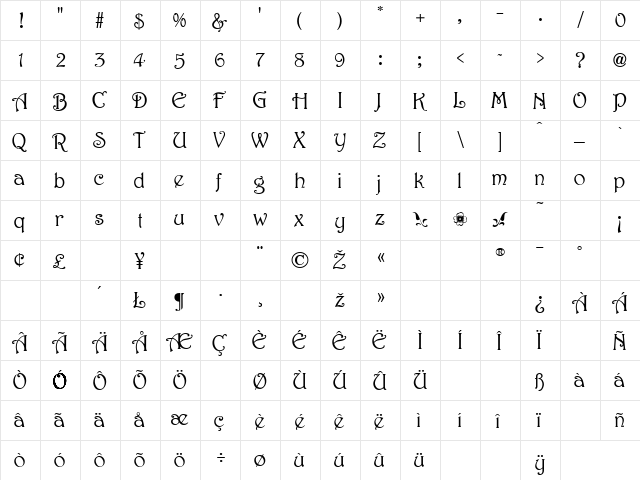
Harrington Normal
Design Context for Harrington Typeface
Harrington is a composed and adaptable typeface that performs quietly and consistently across a wide range of design contexts.
Pro Tip: Pair Harrington with a font of contrasting weight or personality to build a more expressive typographic hierarchy.